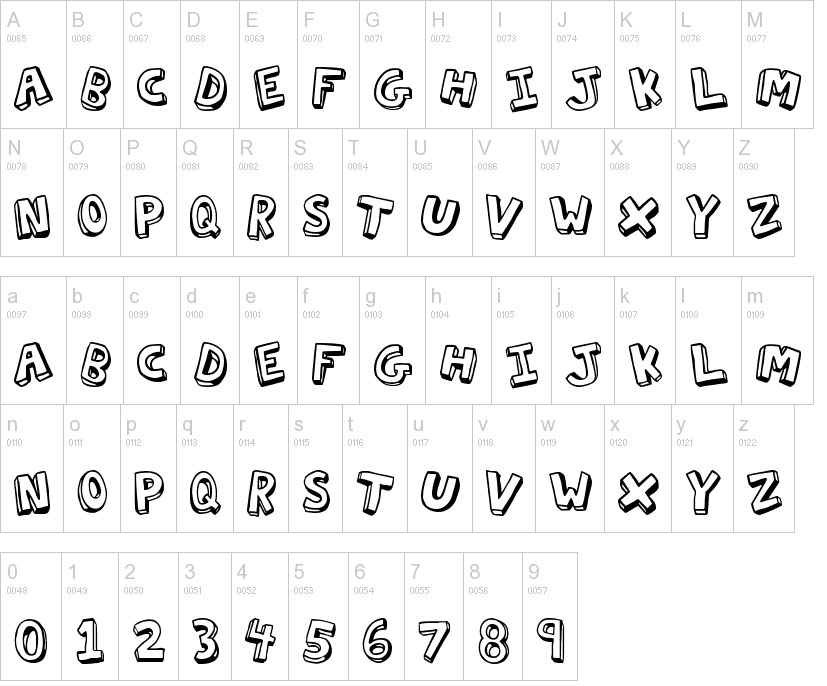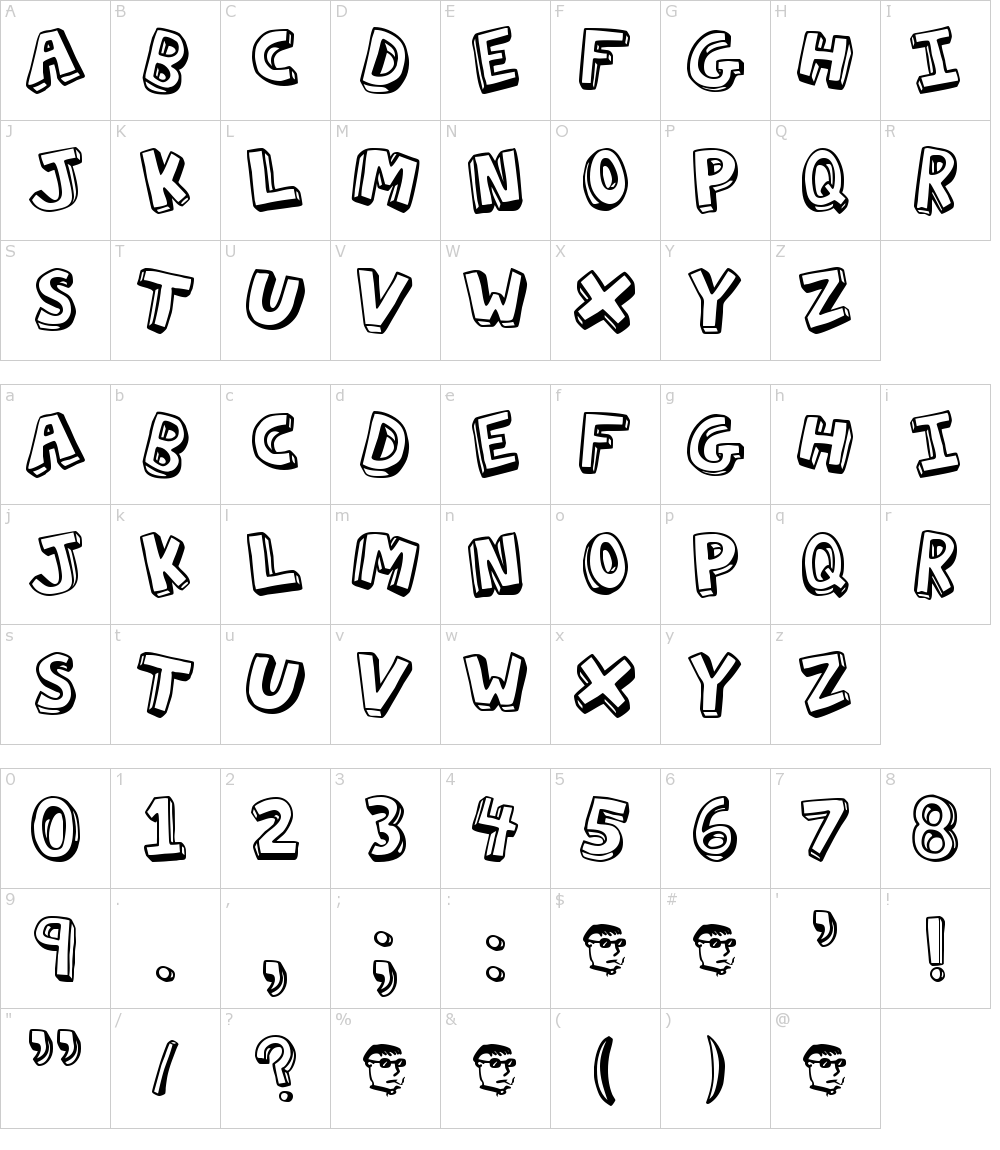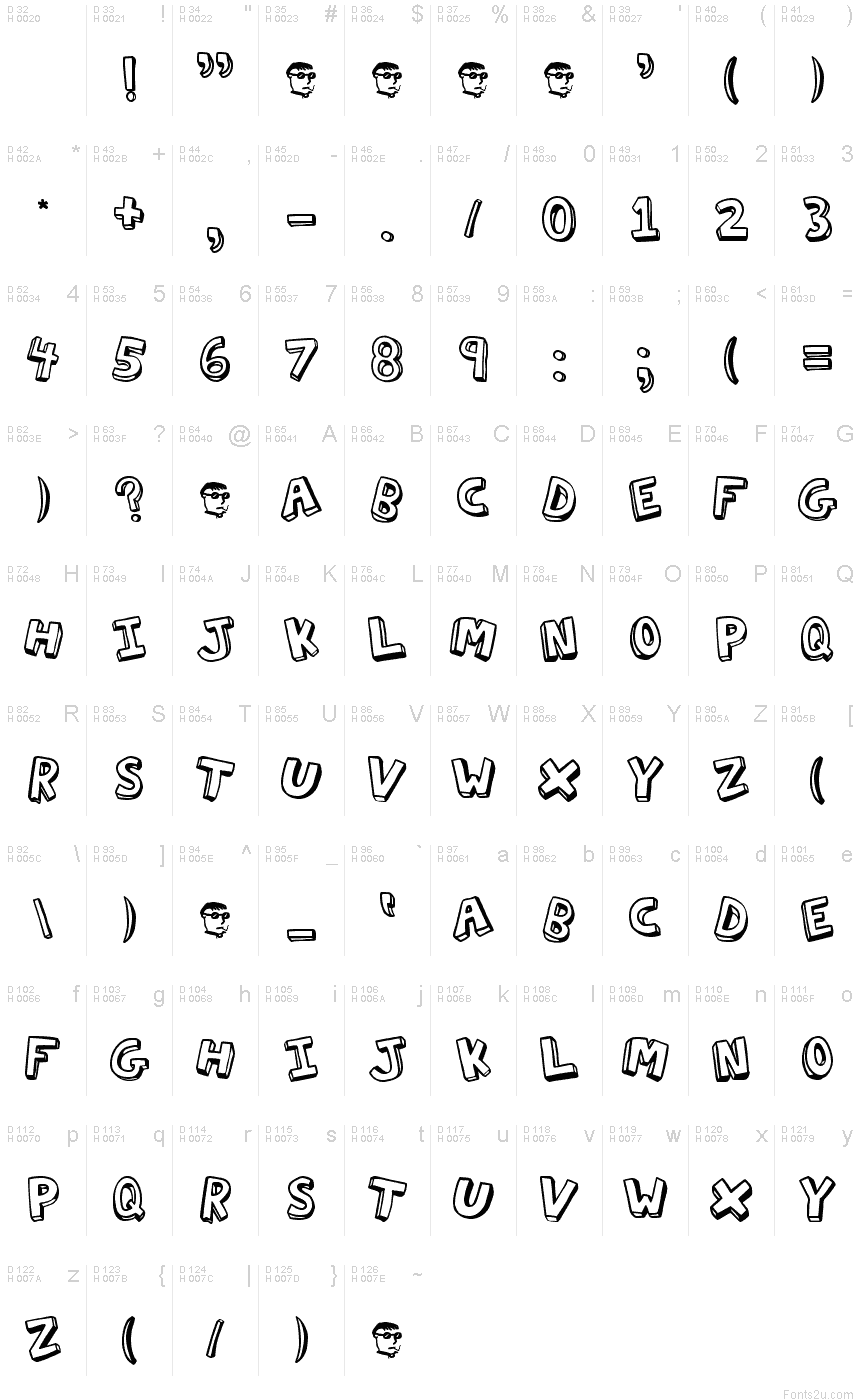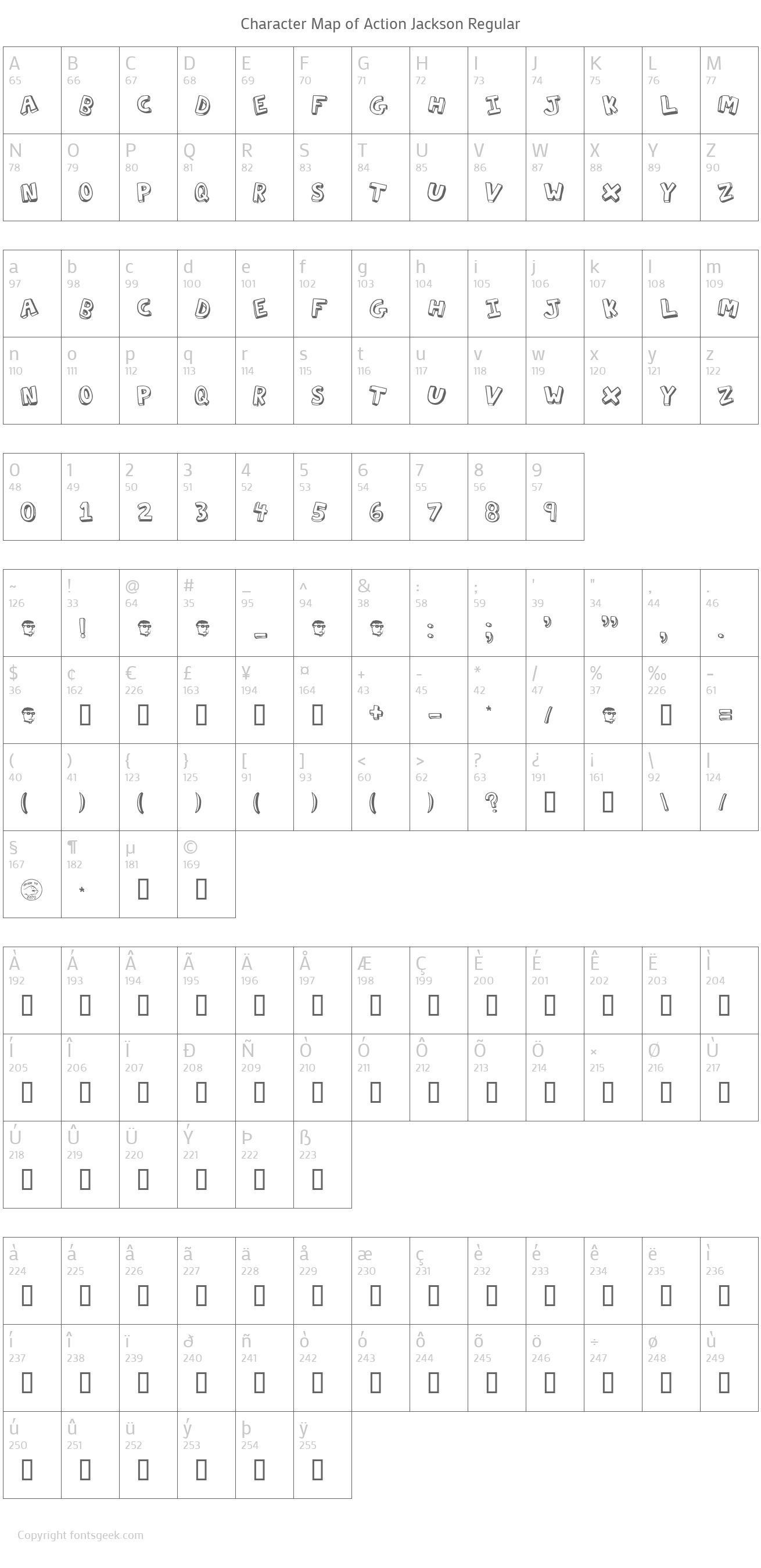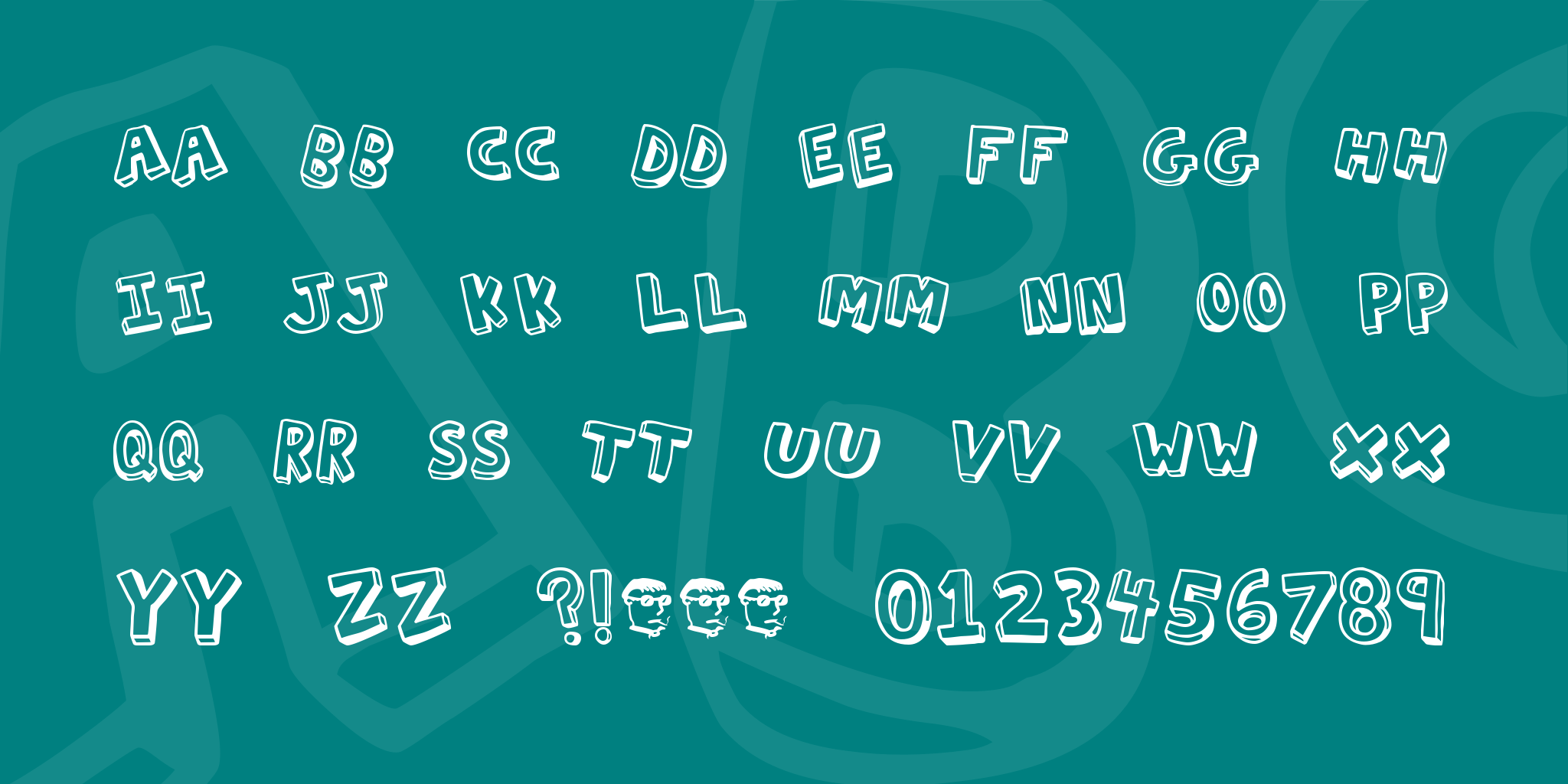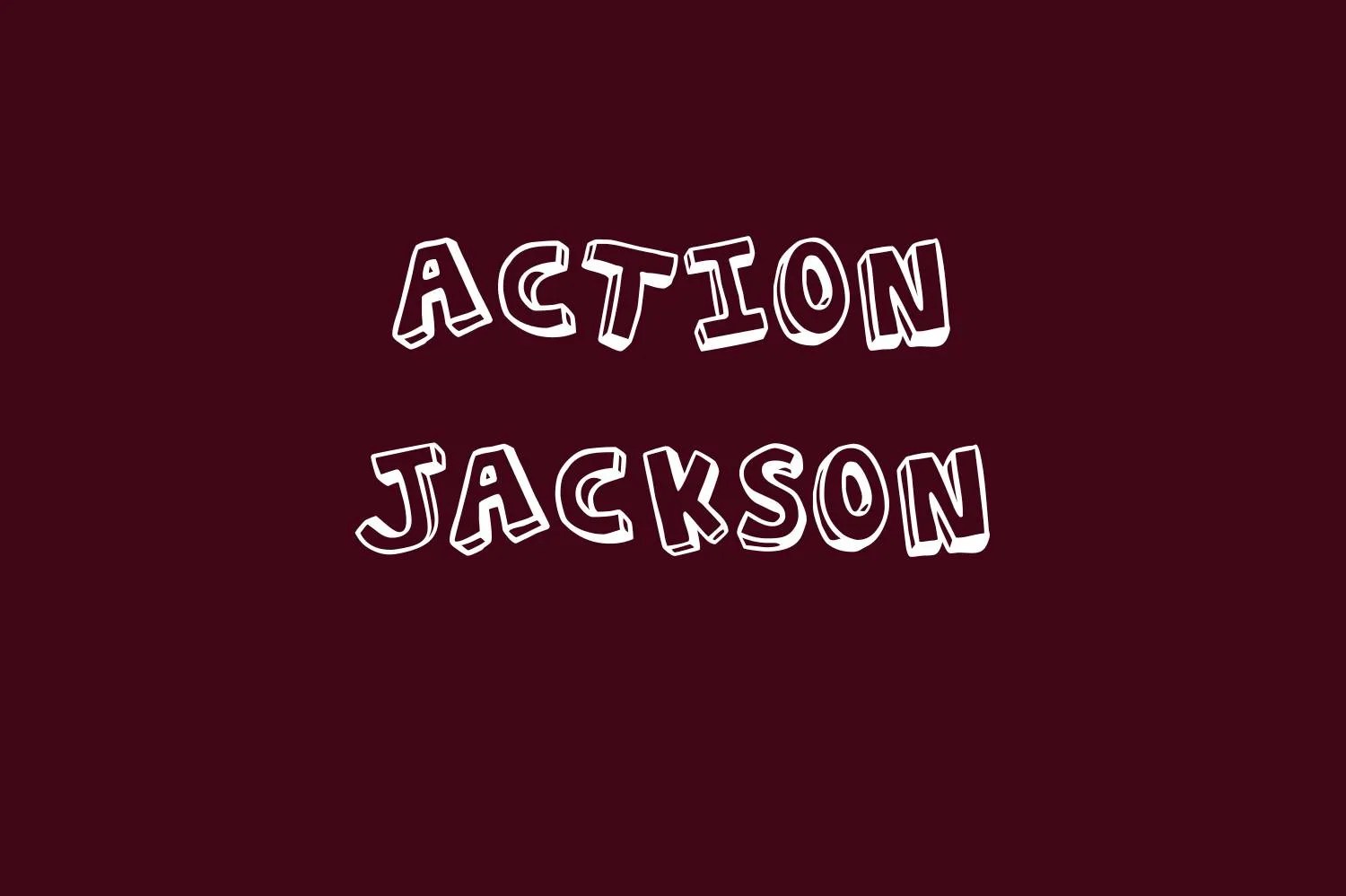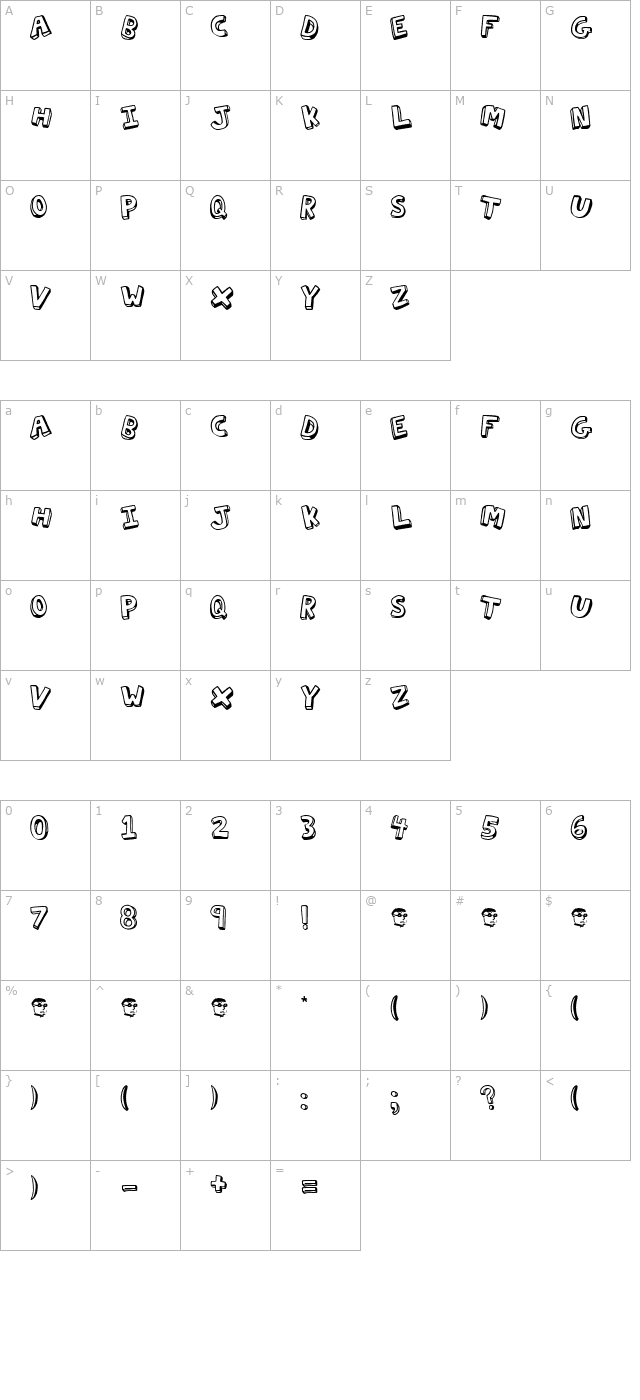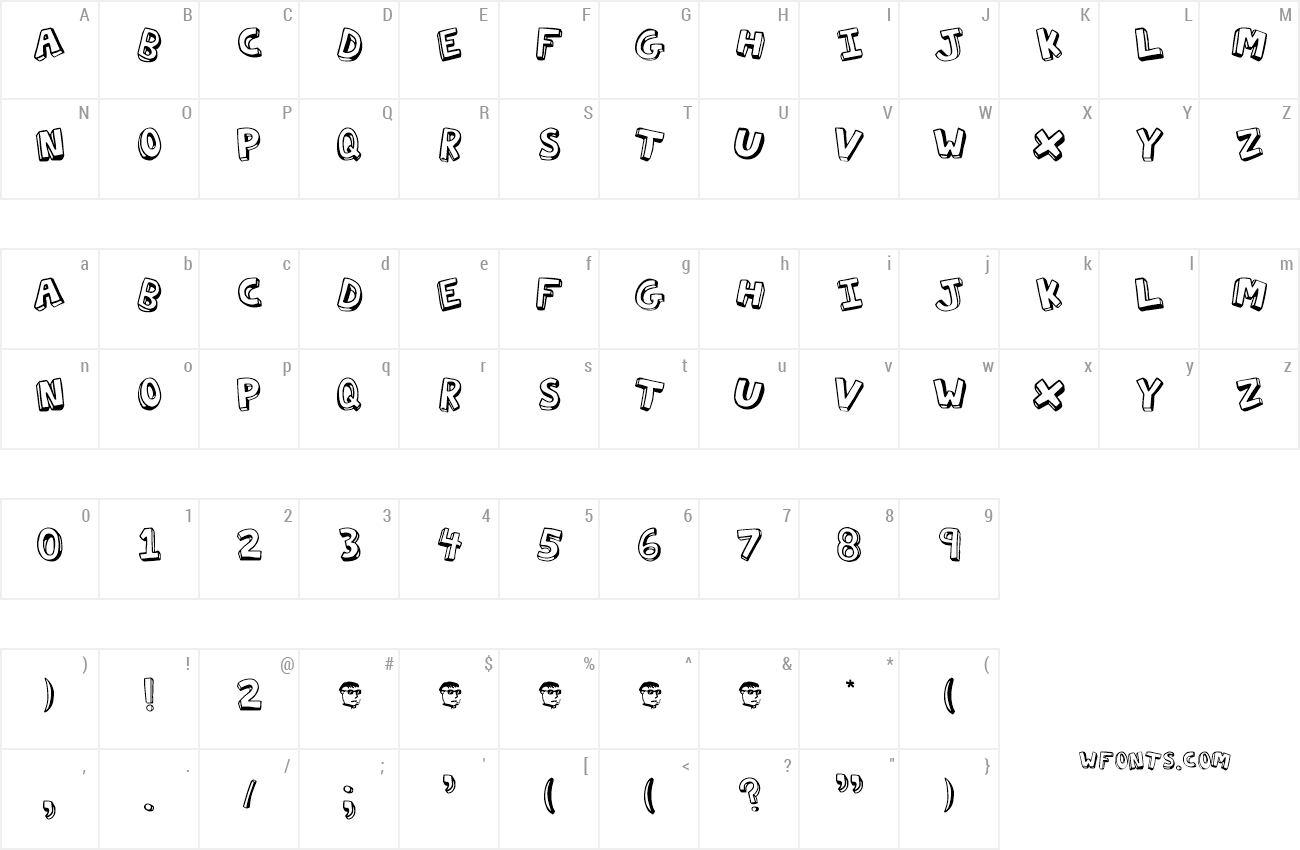
Action Jackson Free Font . This is a sort of comic book action font. Discover the free action jackson font at free font download ! A great choice for highlighting your design elements. The font is licensed as free. Action jackson by divide by zero. Action jackson is a fancy, cartoon font designed by divide by zero. Action jackson font free download. This is a sort of comic book. Free download of action jackson font. The font is free for both personel and. Installable on pc, mac, linux, ios, and android platforms. 1,667,612 downloads (29 yesterday) 26 comments 100% free. Download action jackson font · free for commercial use · (caps/lower [same], numbers, some punctuation, some special). About action jackson regular font (caps/lower [same], numbers, some punctuation, some special). See how to download action jackson for free!
This is a sort of comic book action font. Action jackson is a fancy, cartoon font designed by divide by zero. About action jackson regular font (caps/lower [same], numbers, some punctuation, some special). Installable on pc, mac, linux, ios, and android platforms. See how to download action jackson for free! The font is licensed as free. This is a sort of comic book. The font is free for both personel and. Action jackson font free download. Action jackson by divide by zero.